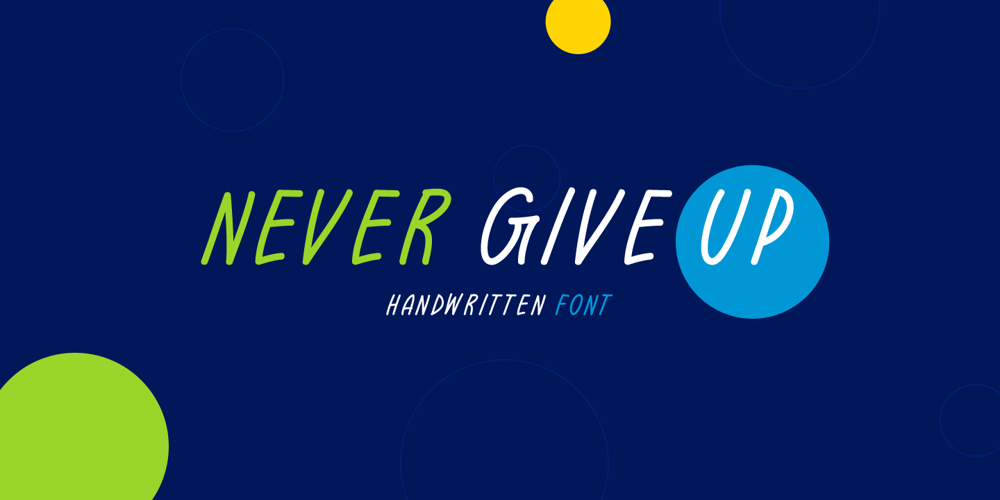
Never Give Up
Never Give Up Font Family was designed by Md Shohail Bhuian and published by Seemly Fonts. Never Give Up contains 1 styles and family package options. Never Give Up is a simple and friendly handwritten font, featuring the perfect amount of trendiness. This original look will appeal to a wide range of crafty ideas, from letterheads and titles to stationery.